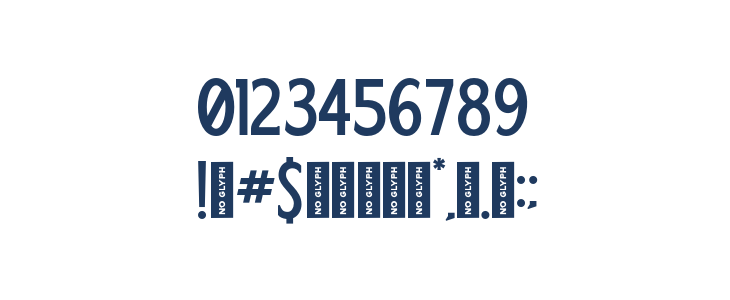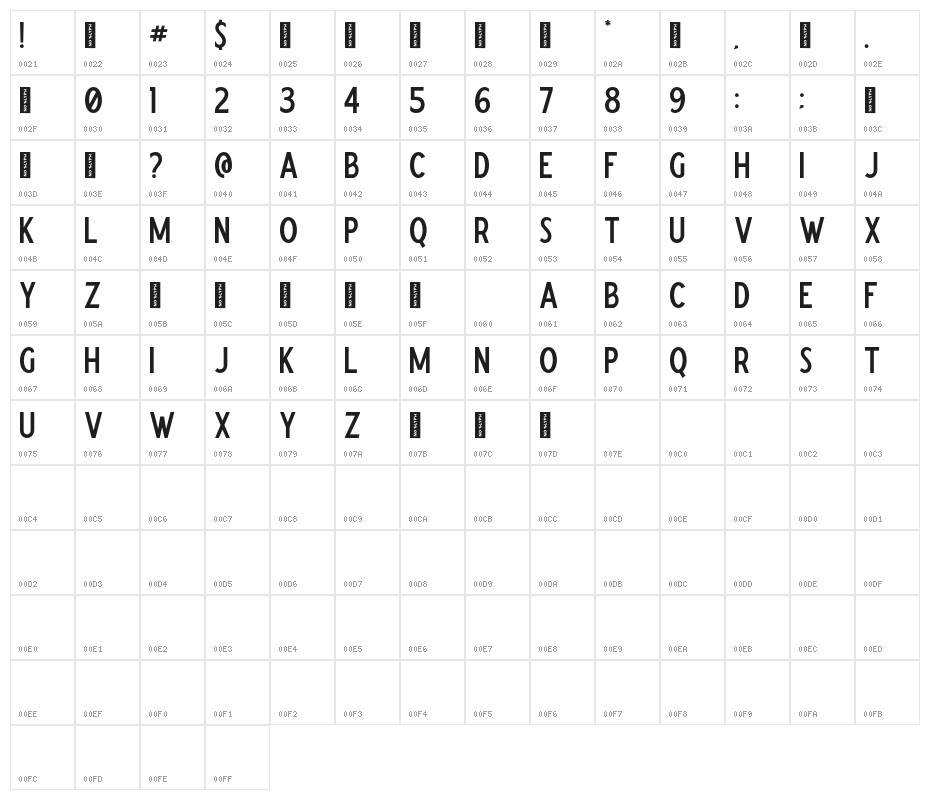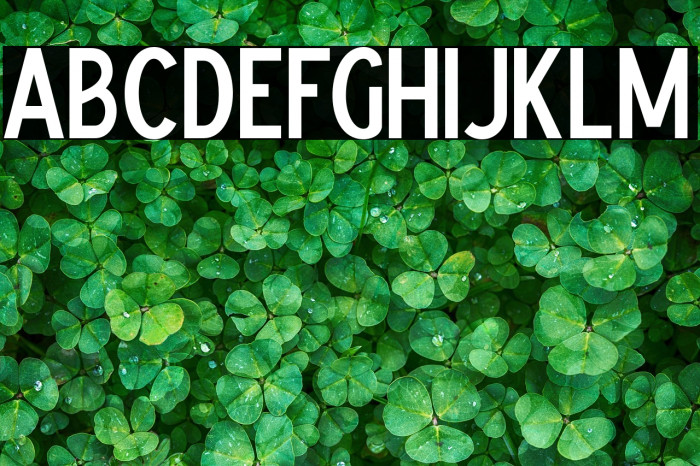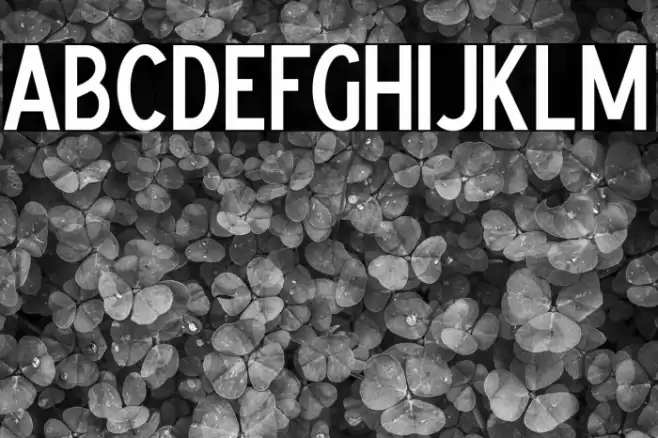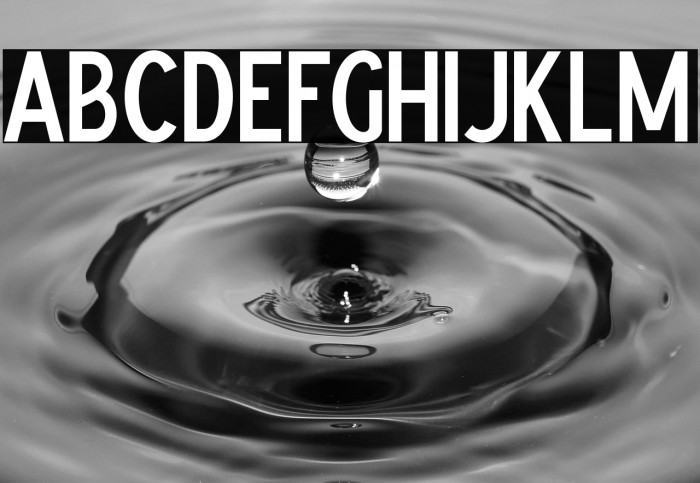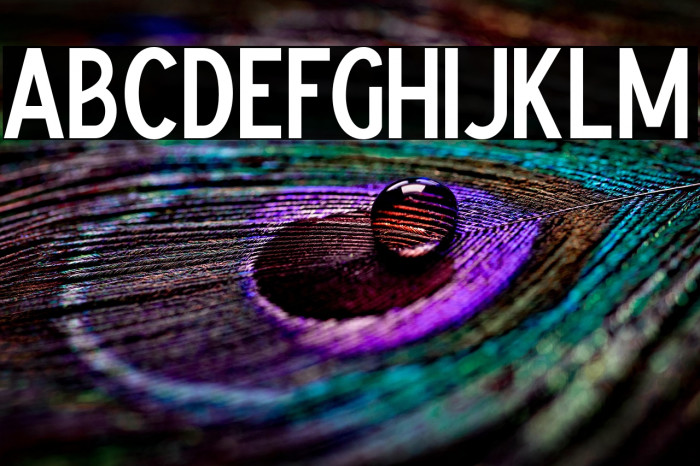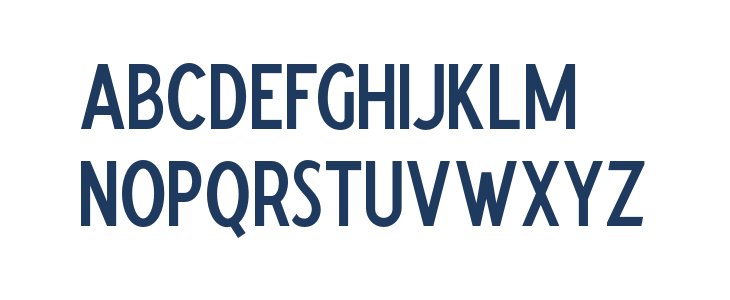
Cemoro Font
Cemoro Description
This font features a bold and modern sans-serif style with clean, straight lines and a uniform stroke width. The characters are tall and slightly condensed, giving a sleek and professional appearance. The uppercase letters are prominent and well-defined, while the lowercase letters maintain a consistent height and width, ensuring readability. The numerals are distinct and align well with the overall geometric design of the font. Special characters are limited, but those present are clear and match the font's aesthetic. This font is versatile and can be used in various design contexts.
| Proposed Projects | Ideal for branding, advertising, headlines, and digital media where a modern and professional look is desired. |